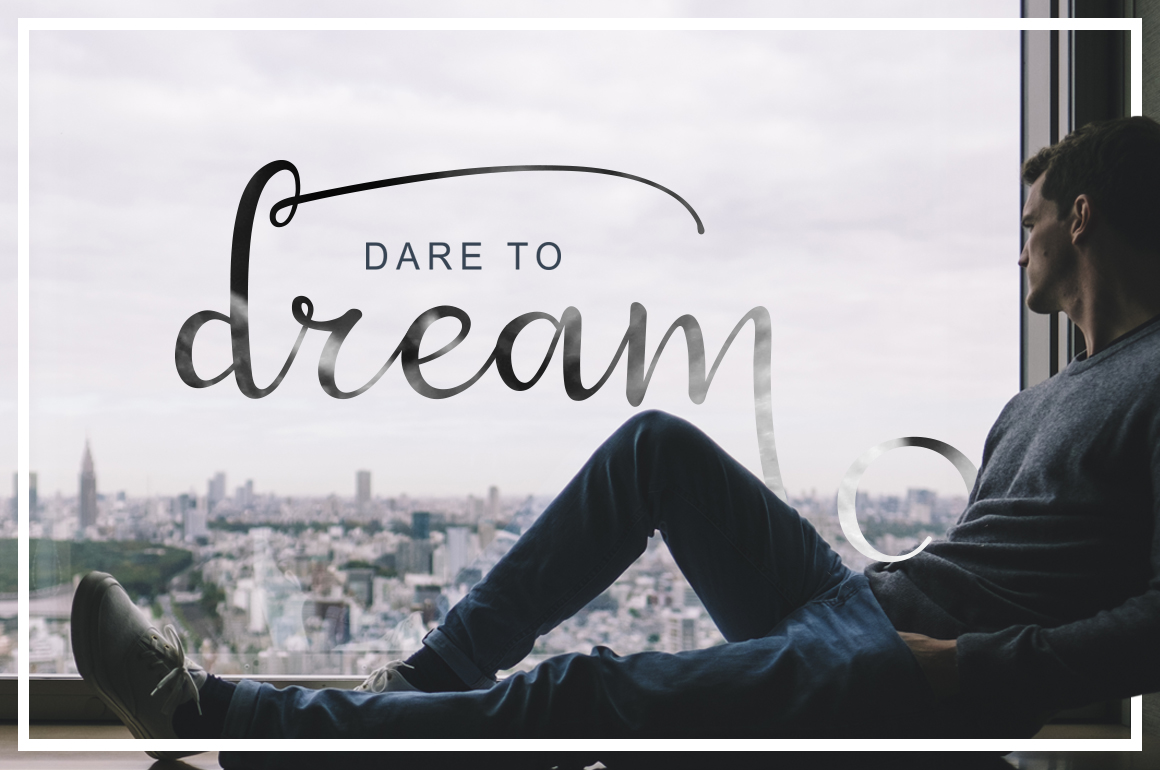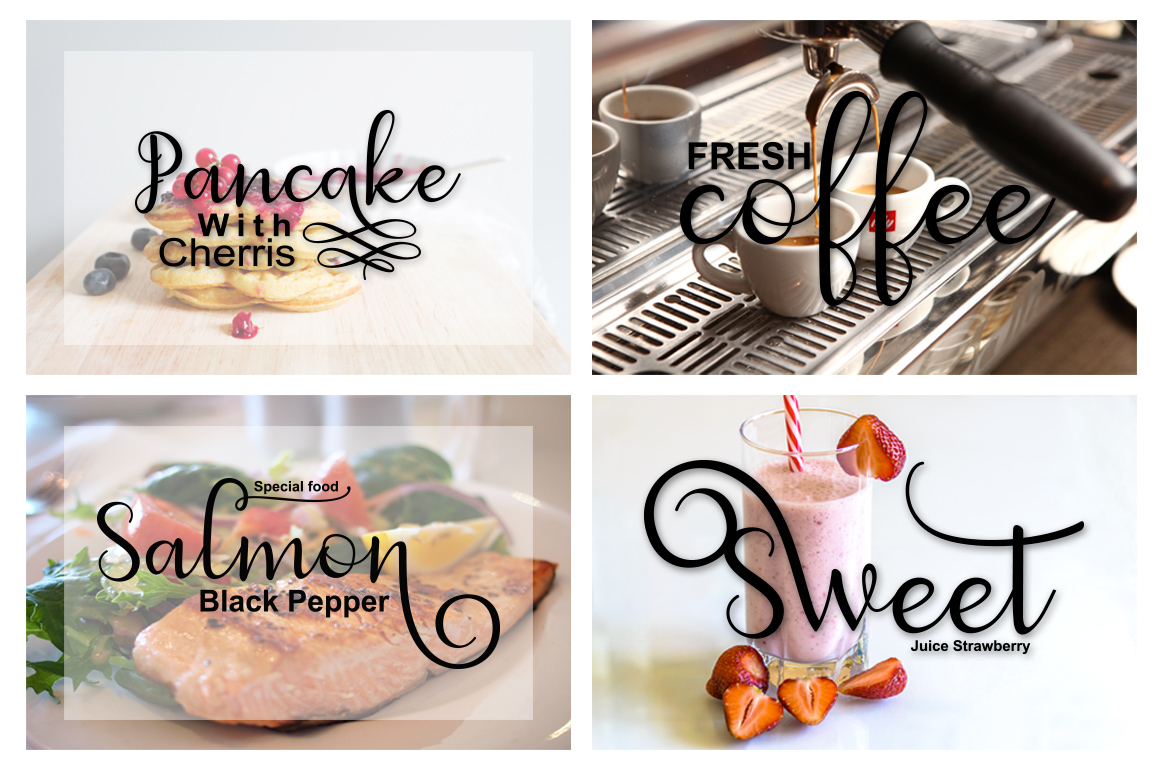
Battshion Calligraphy Font
Battshion Calligraphy Font – a new fresh handmade calligraphy font. Very suitable for greeting cards, branding materials, business cards, quotes, posters, and more!This font are perfect for wedding postcard. Or you can create perfect and unique design of your logo, blog, stationery, marketing, magazines and more 🙂